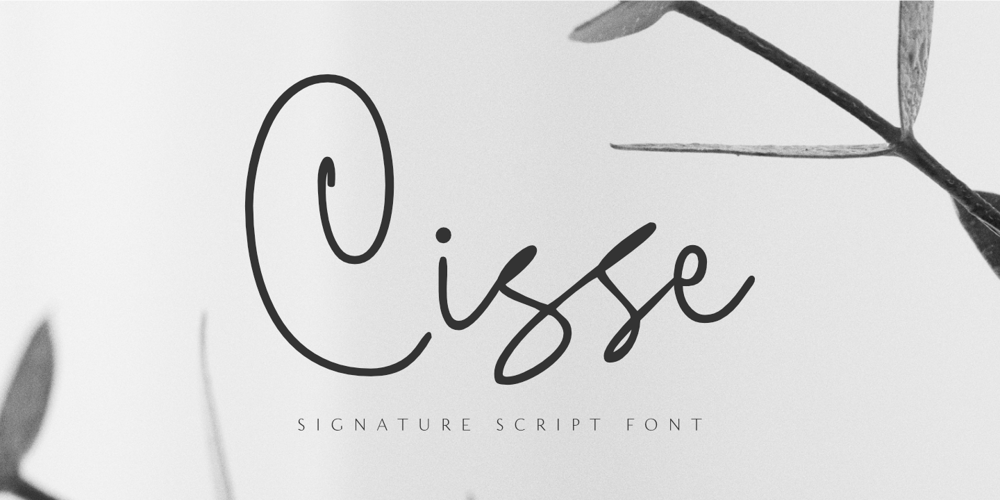
Cisse
Cisse font
Cisse Font Family was designed by Aldy Sidik and published by Epiclinez. Cisse contains 1 styles and family package options. Cisse is a signature script font that has a classy & elegant feel that gives you so many ways to create beautiful typography in your design projects. It’s made up of smooth curves, which are also perfect for logos & wedding invitations. Use Cisse script font to make your design stand out!So what’s included : Basic Latin Uppercase and Lowercase Numbers, symbols, and punctuations Ligatures Multilingual Support. Fully accessible without additional design software Simple Installations works on PC & Mac Thank You!